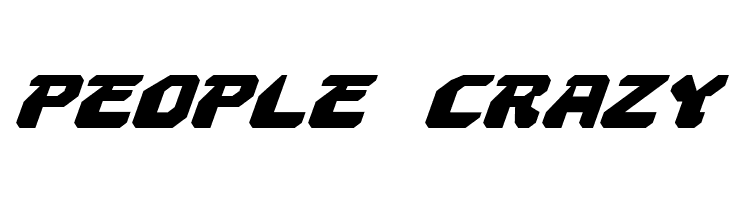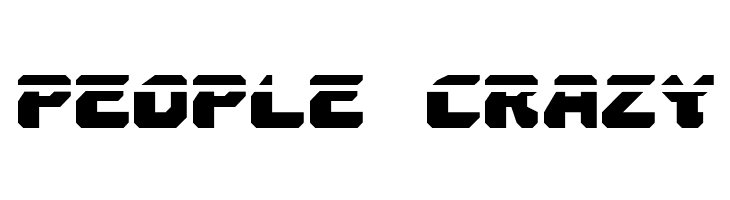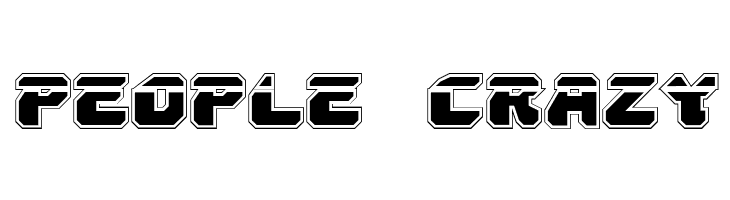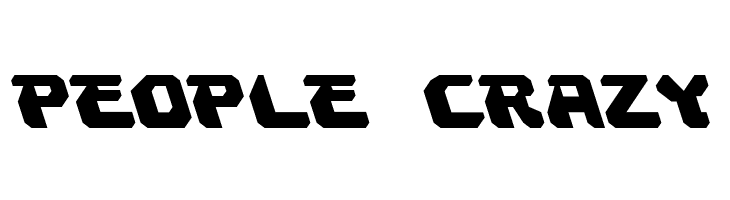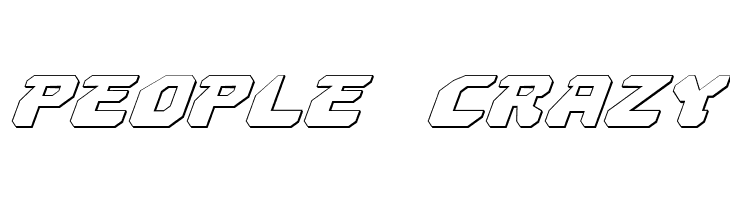
La Estroma Font
- Font: La Estroma
A bold, italicized font with a futuristic and dynamic design.
A bold, futuristic font with geometric angles and a sci-fi aesthetic.
A futuristic, bold font with geometric, blocky characters and a strong, digital aesthetic.
A bold, geometric font with a rough, textured finish and sharp, angular characters.
A bold, futuristic font with angular, geometric shapes.
A bold, 3D italic font with a futuristic and dynamic design.
A bold, geometric font with a futuristic and edgy style.
A futuristic, 3D, italic font with a bold, geometric design.